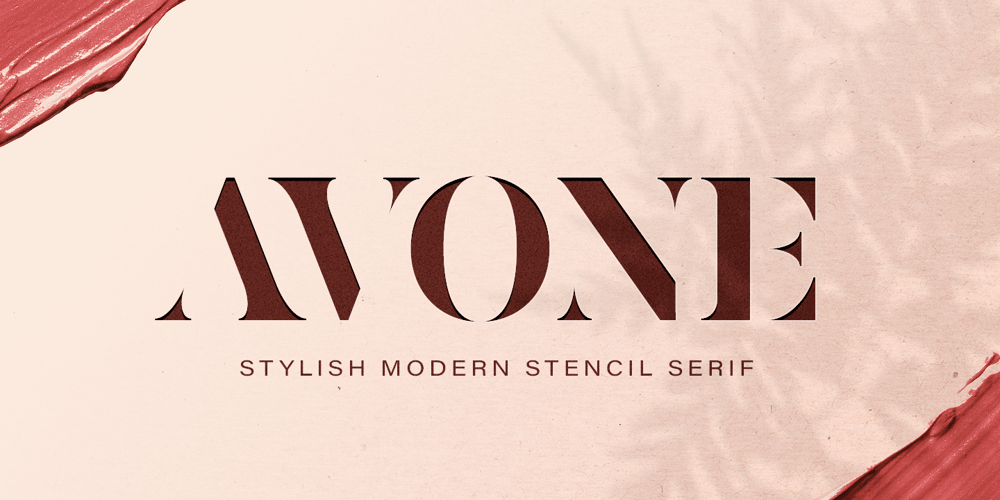
Avone
Avone font
Avone Font Family was designed by Abdul Malik Wisnu and published by Almarkha Type. Avone contains 2 styles and family package options. Introducing AVONE is a Stylish modern serif font with a stylish touch inspired by the famous minimalist logo and AVONE has 2 Regular and Stencil styles is perfect for the purposes of designing templates, brochures, videos, advertising branding, logos and more.What’s Included :Standard glyphsWeb FontMultilingual AccentWorks on PC & Mac , Simple installationsAccessible in the Adobe Illustrator, Adobe Photoshop, Adobe InDesign, even work on Microsoft Word. PUA Encoded Characters – Fully accessible without additional design software. Fonts include multilingual supportImage used : All photographs/pictures/vector used in the preview are not included, they are intended for illustration purpose only.Thank’sCheers!